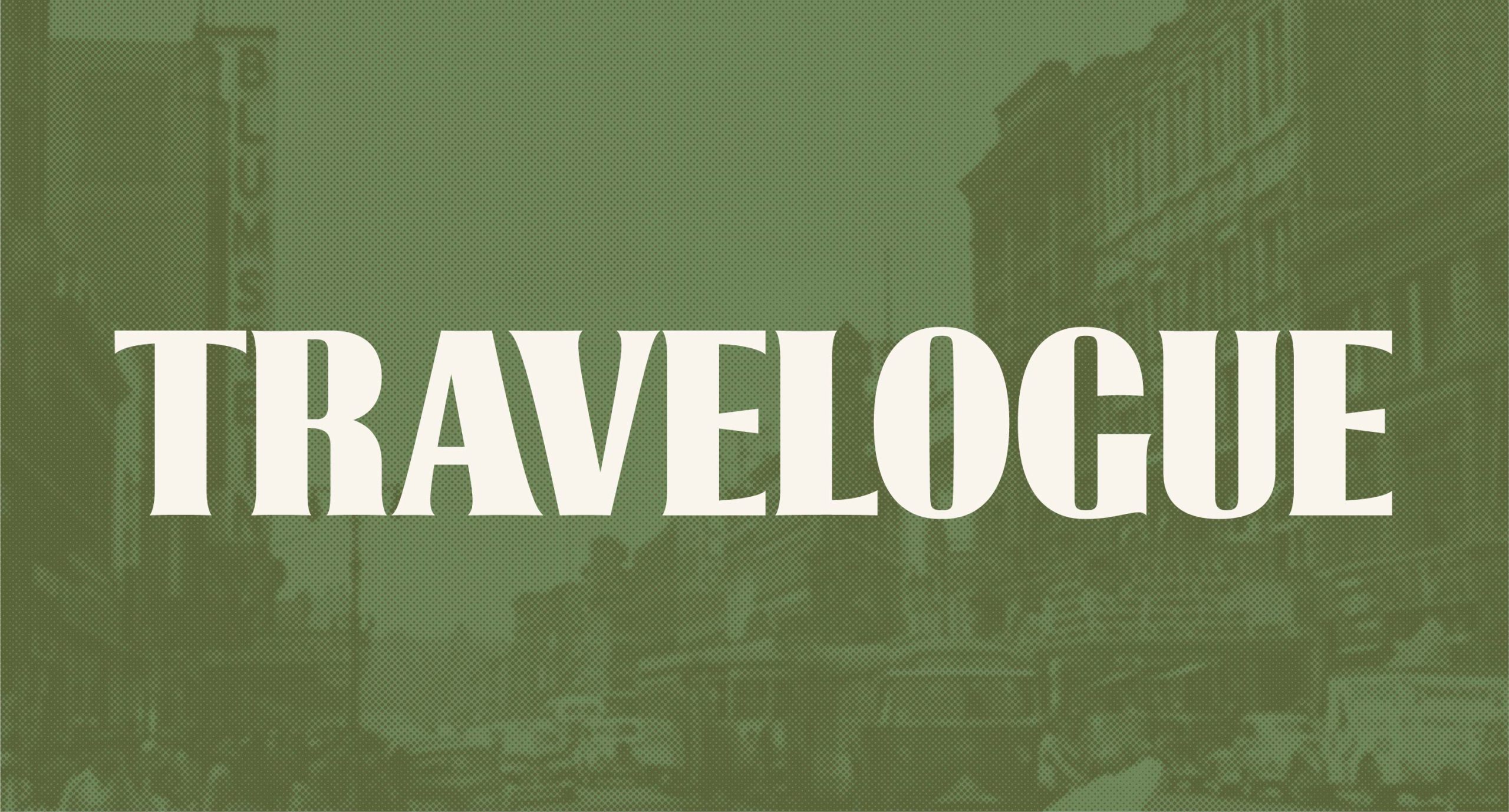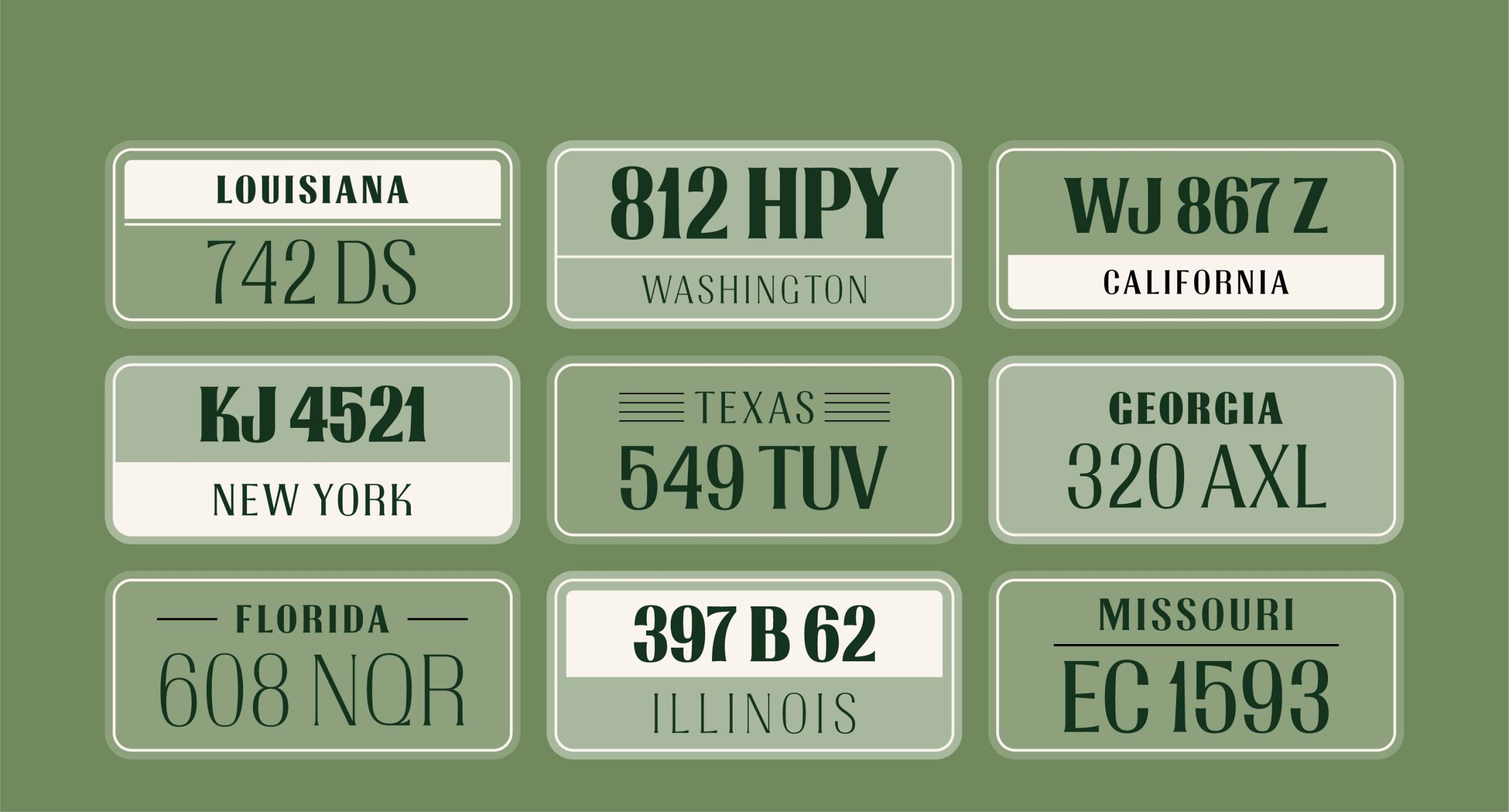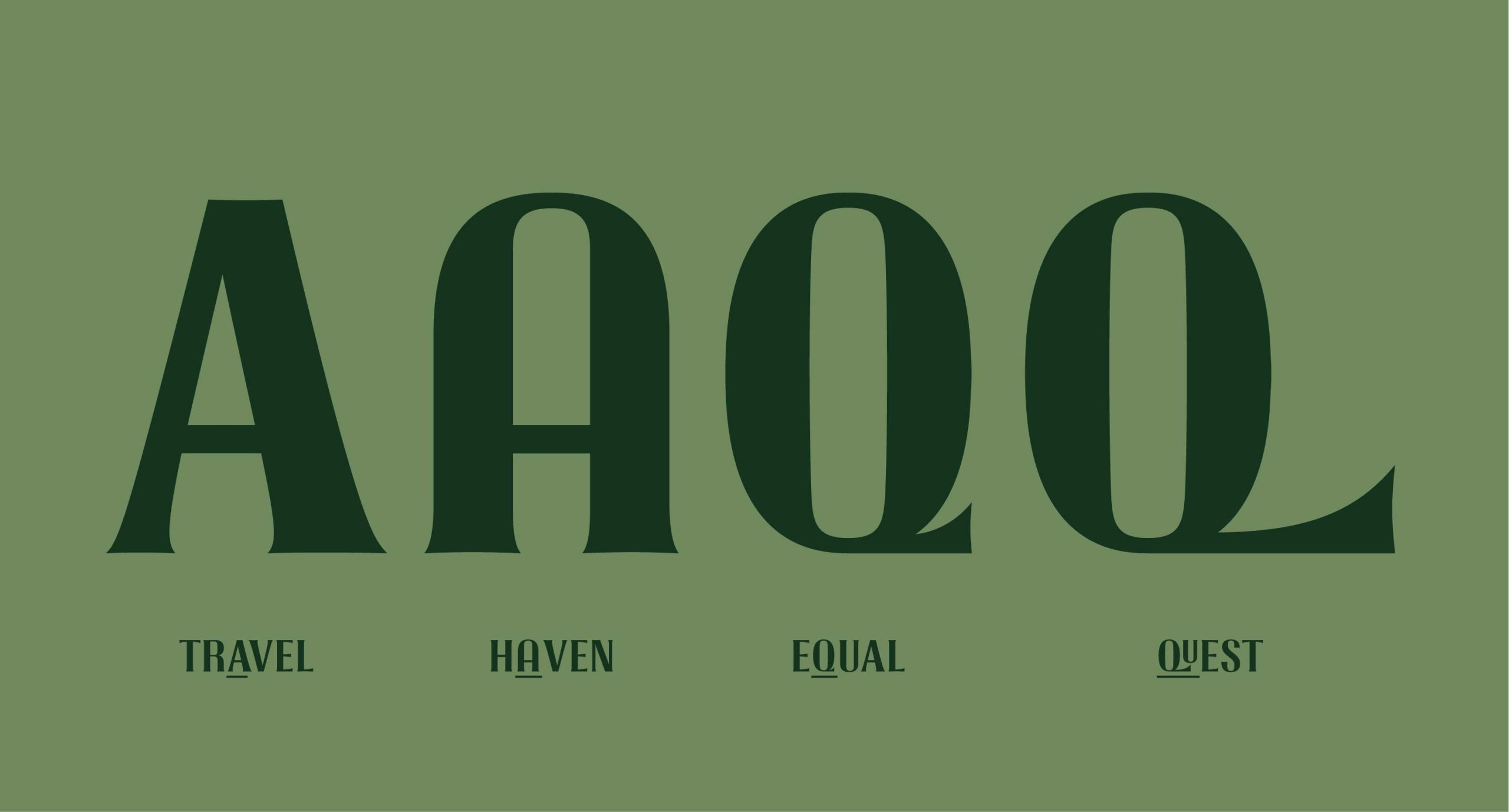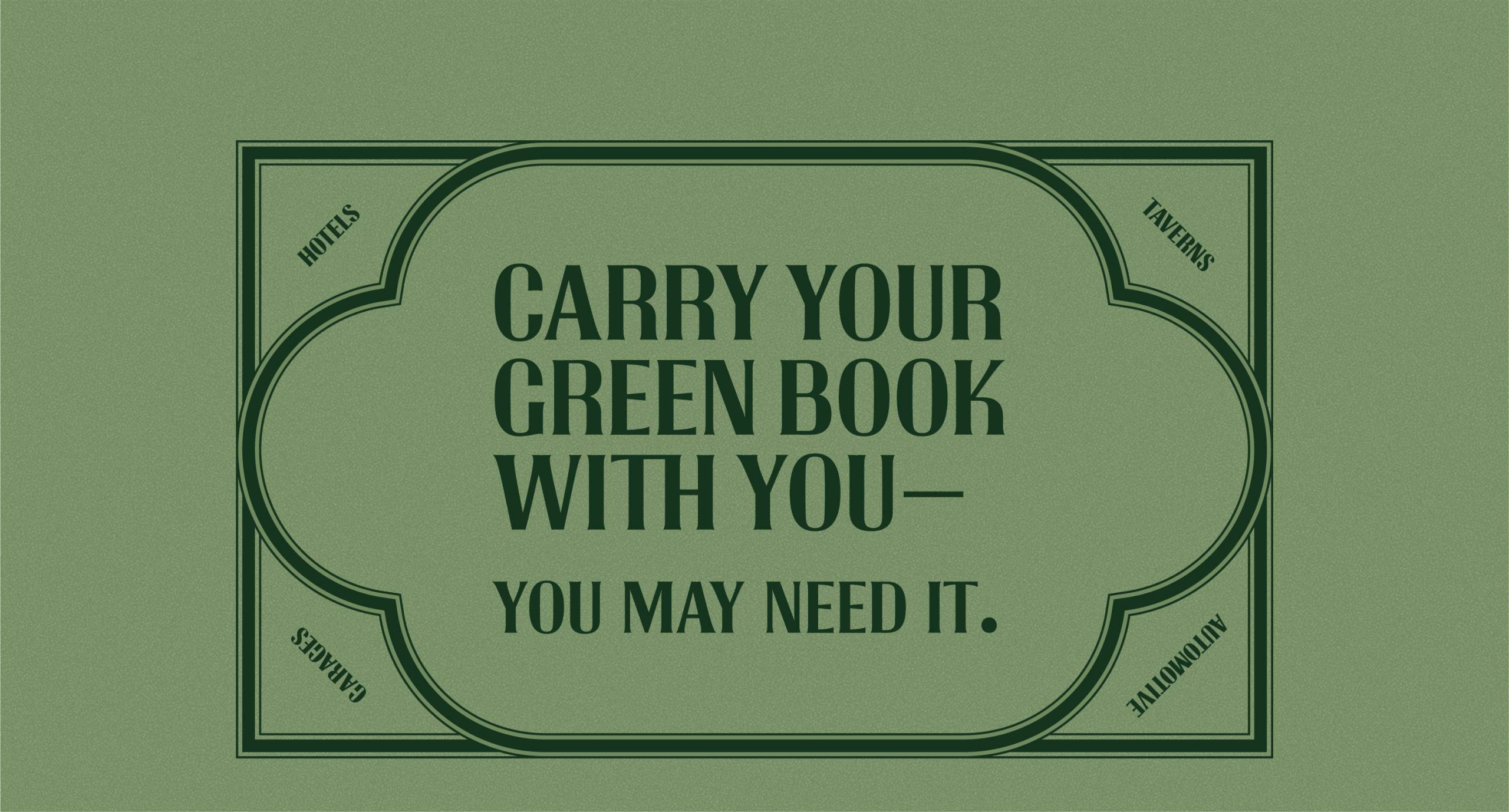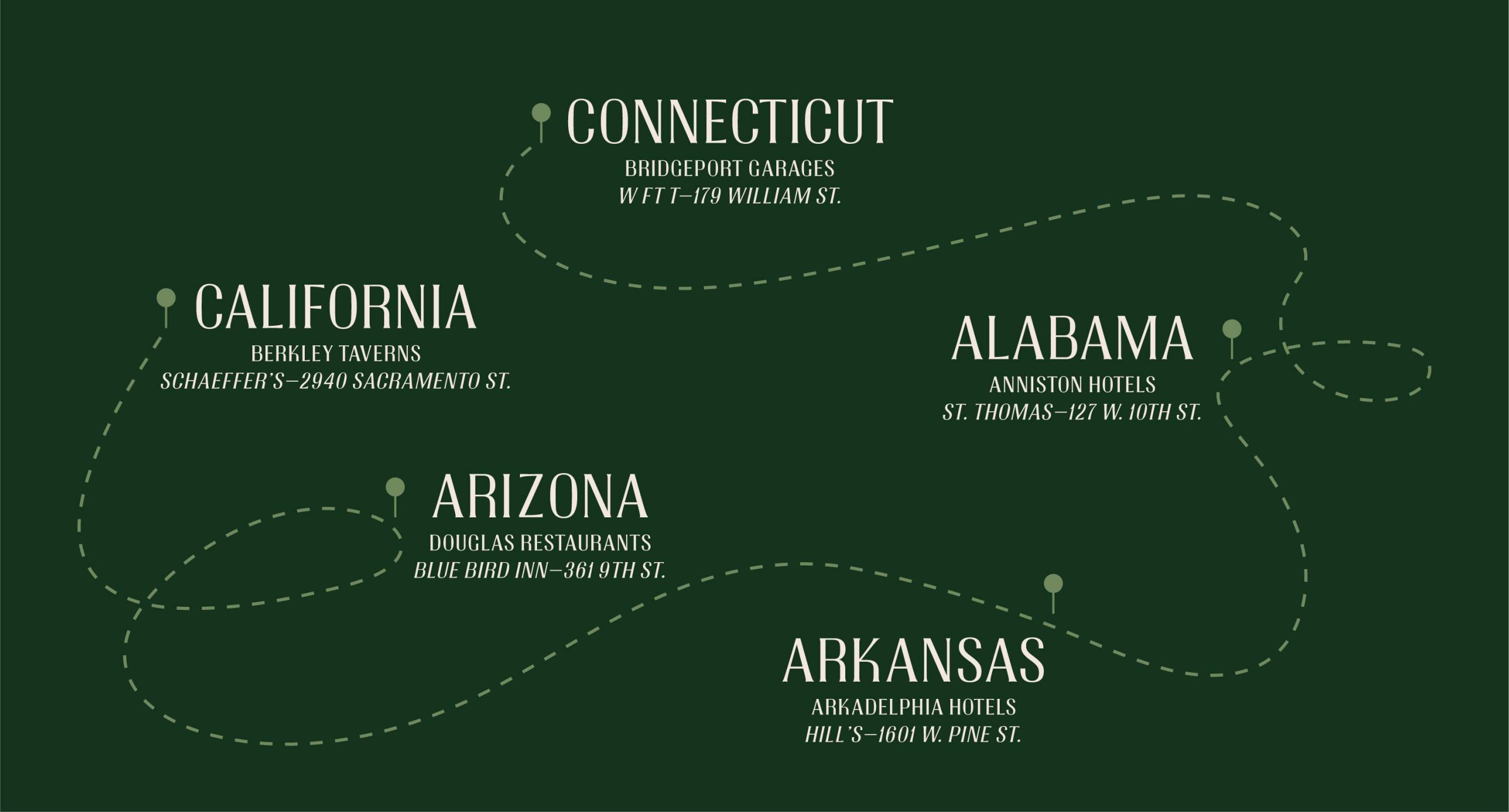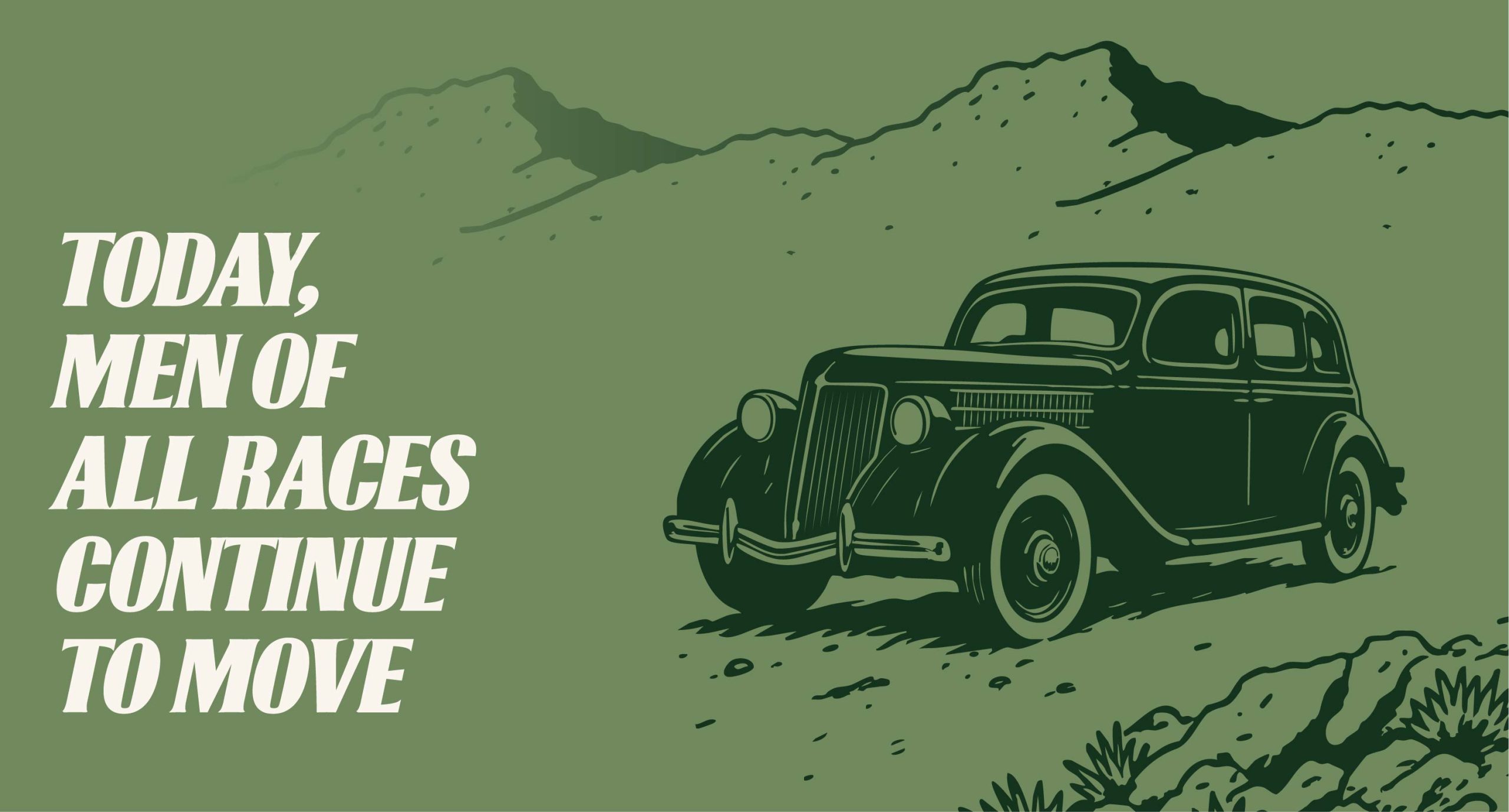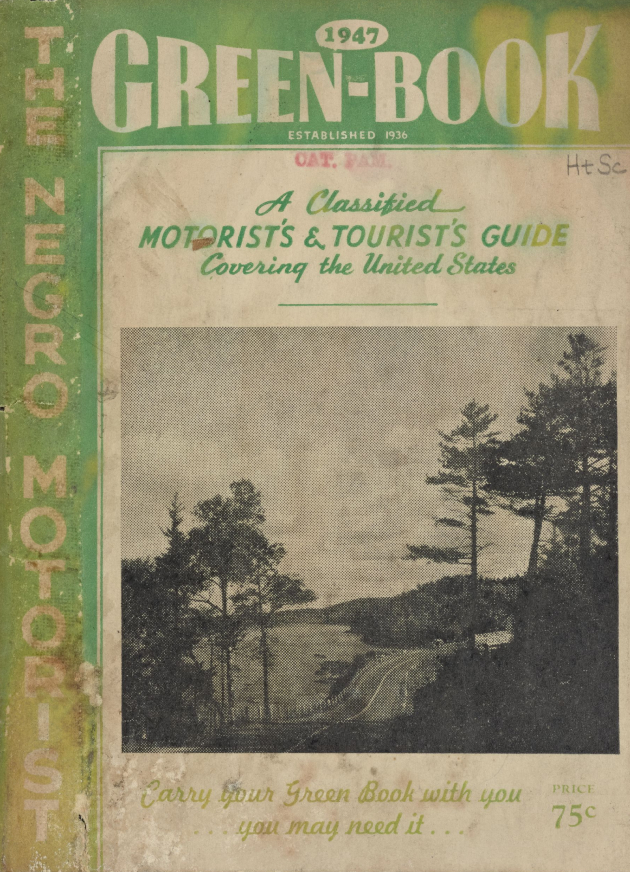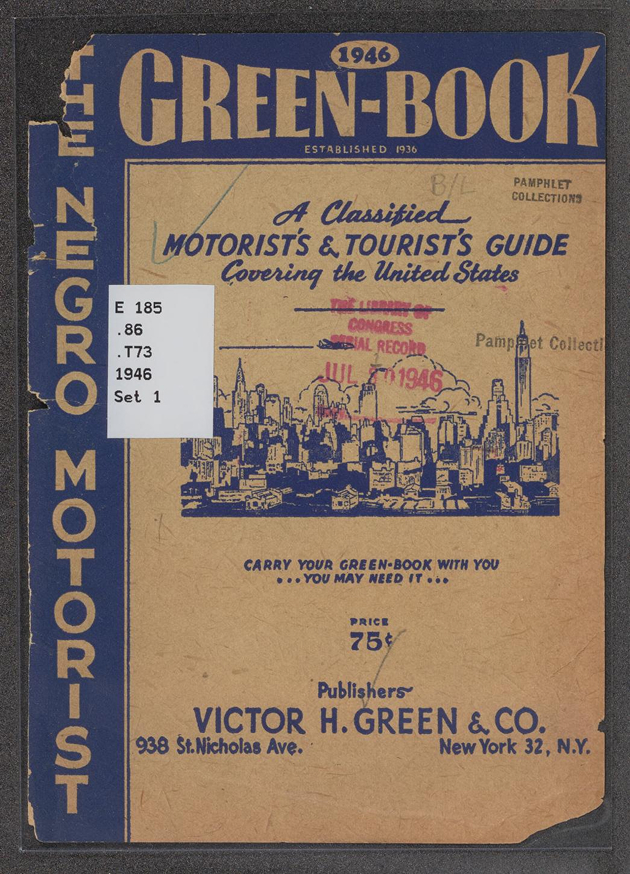
Travelogue
David Jon Walker
Mares Rayeshtyan
Travelogue is a typeface based on a hand-drawn masthead from the 1946-47 editions of Victor Green’s Green Book. The Green Book was a classifieds-based travel guide for African-Americans in the United States to provide safe routes for traversing the socially dangerous roads across a nation and advertising welcoming establishments for vacations, overnight stays, or short stops for dining or restroom breaks. The titling typeface is meant to represent the strength and persistence of Black life through travel and experience. The personality of the letterforms and the contrasting weight serves as a nuanced testament to varied life experiences of a people during that timespan.